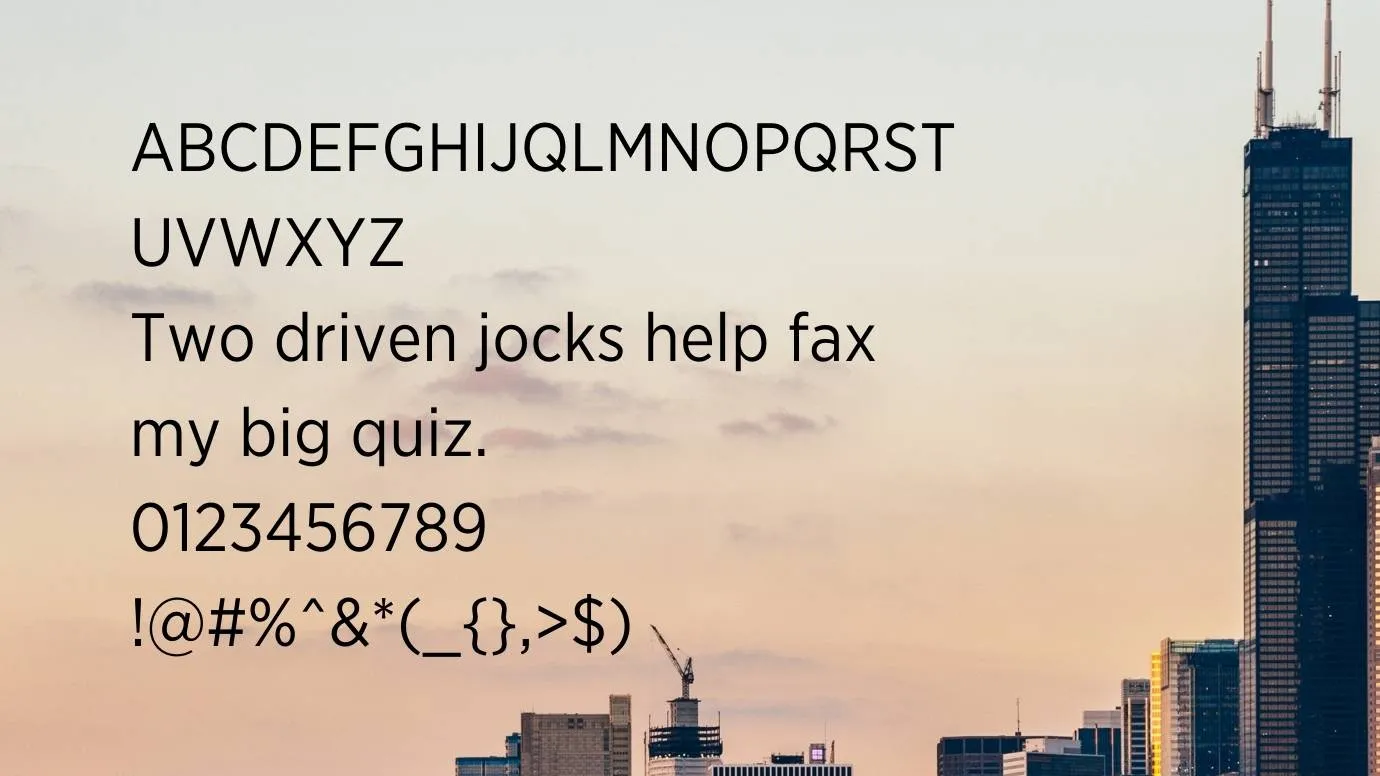
Gotham Narrow font is a member of the Sans-Serif font family. This typeface has been designed with a Narrow lines font appearance that provides a pleasant and modern texture appearance to your designs and projects. This typeface also has a neat and elegant texture appearance that can easily utilize on small and large screen displays interfaces. This font style is also considered the neatest font that can also produce a classic sensation. This typeface can easily be utilized in today’s flexible layouts and designs. This typeface is also used in the various apps of MAC.
This font style also has a pairing nature that can easily make pair with other fonts. So, you can easily choose other fonts and combine them with this font style for creating amazing designs. This typeface also has some similar fonts that have matching identities with this font. But gotham medium font has the most similar personality to this font. So, you can use this font as a replacement for Montserrat Font. You may also utilize its font generating tool to create a quick design or convert text to graphics. This tool does not need to be downloaded to your operating system.
Designer of Gotham Narrow Font
This Humanist Sans-Serif font was designed by the well-reputed typographic designer who has made his worth by creating many of the famous font styles named Tobias Frere-Jones. He has also created many of the famous fonts that are used in the majority of designs and projects.
This font texture is constructed with a wide family of its own. These styles are mentioned below: –
Each style of this family is comprised of capital letters, small letters, glyphs, punctuations, numbers, symbols, special characters, and many languages support.
What type of font is Gotham Narrow font?
It is a Humanist Sans-Serif Font that has a semibold and prominent texture appearance.
Who designed Gotham Narrow Font?
This Humanist Sans-Serif font was designed by the well-reputed typographic designer who has made his worth by creating many of the famous font styles named Tobias Frere-Jones.
What font is closest to Gotham Narrow Font?
Some of the typographies have an eerily similar feel to this design. The Visa Pro font, on the other hand, is quite similar to this font. As an alternative to the Visa Pro font style, this typeface can be utilized.